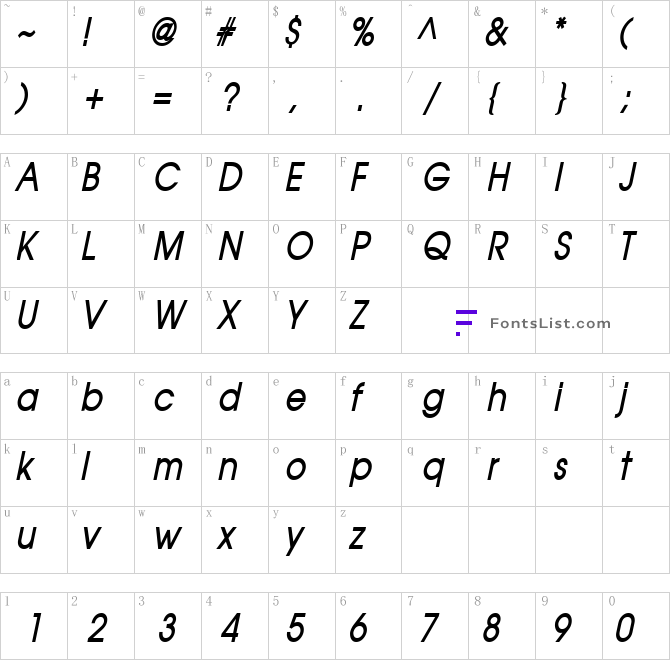
- Font Name:Atilla Condensed
- Subfamily:BoldItalic
- Full Name:Atilla Condensed BoldItalic
Atilla-Condensed-BoldItalic.ttf is a very beautiful artistic font, Atilla-Condensed-BoldItalic.ttf is widely used in the design and printing of various books and pictures,Atilla-Condensed-BoldItalic.ttf has a strong visual impact,Atilla-Condensed-BoldItalic.ttf is a commonly used font in newspapers, magazines and books, and is used in posters, e-commerce Poster design, store design, logo design, font design and other fields.Atilla-Condensed-BoldItalic.